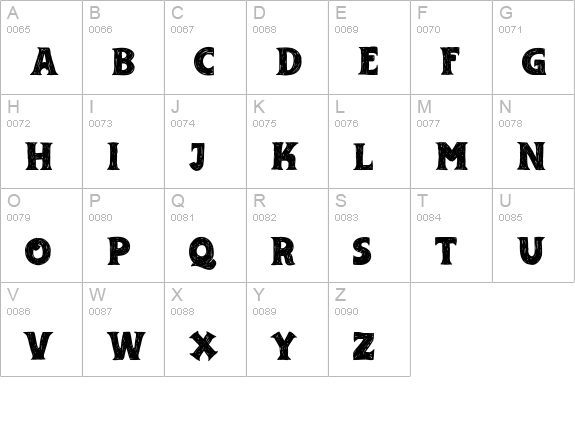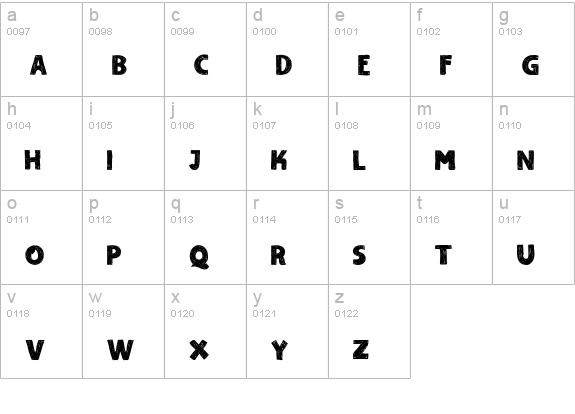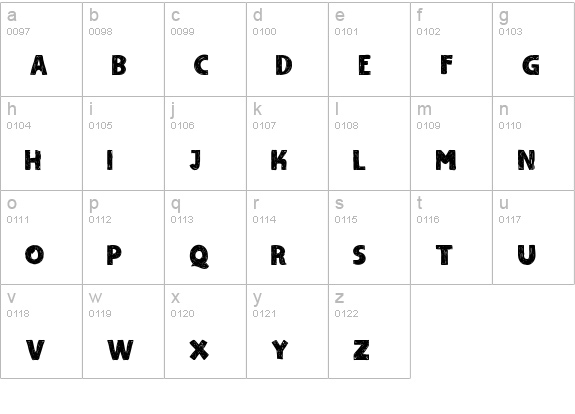
Adelard Font Details
Adelard is a free for personal use font in the General > Serif category, designed by Garisman. It has been downloaded 338 times and is available for Windows, Mac and Linux.
Adelard font is a stylish and elegant typeface that exudes sophistication and charm. With its unique blend of classic and modern elements, Adelard is perfect for a wide range of design projects, from invitations to branding to social media graphics. The sleek lines and graceful curves of this font make it a versatile choice for both digital and print applications.